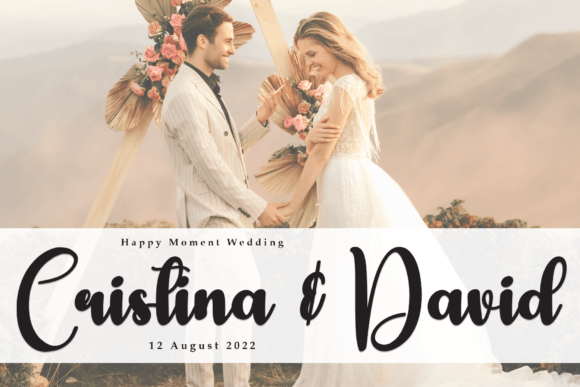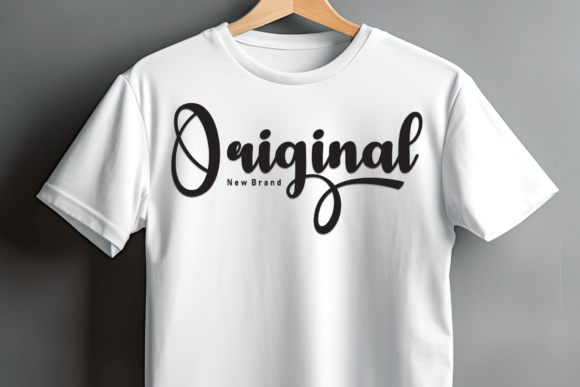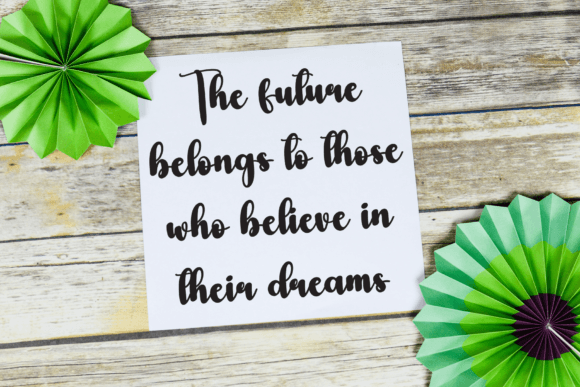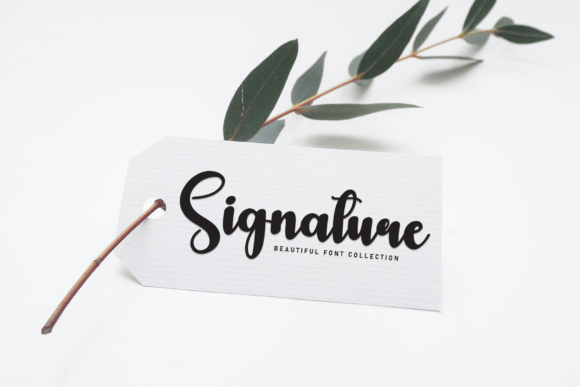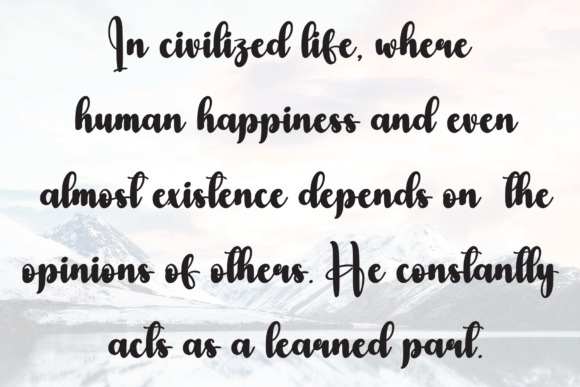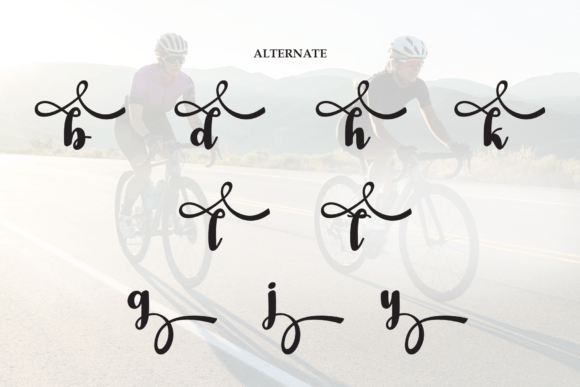
Cycling Font: Add a Touch of Whimsy to Your Designs
Cycling is a sweet and friendly handwritten display font that is sure to bring a smile to your face. This adorable font is perfect for adding a fun touch to your designs, making it ideal for writing wedding invitations, cards, or any other project that requires a dash of personality. In this article, we’ll take a closer look at the Cycling Font, its features, and how you can use it to elevate your designs.
What is Cycling Font?
Cycling Font is a handwritten display font that boasts a charming, cursive style. Its sweet and friendly demeanor makes it perfect for a variety of design applications, from formal events to casual projects. The font’s playful and carefree vibe is sure to capture the attention of your audience and leave a lasting impression.
Key Features of Cycling Font
- Cute and Fun: Cycling Font is designed to add a touch of whimsy to your designs. Its playful and fun style makes it perfect for projects that require a lighthearted approach.
- Handwritten Display Font: This font features a beautiful, handwritten style that is sure to add a personal touch to your designs.
- Ideal for Wedding Invitations and Cards: Cycling Font is perfect for writing wedding invitations, cards, or any other design that requires a touch of elegance and sophistication.
- Easy to Read: Despite its playful style, Cycling Font is easy to read, making it perfect for body text and headings.
How to Use Cycling Font in Your Designs
Cycling Font is a versatile font that can be used in a variety of design applications. Here are a few ideas to get you started:
- Wedding Invitations: Add a touch of elegance and sophistication to your wedding invitations with Cycling Font.
- Greeting Cards: Use Cycling Font to create fun and playful greeting cards for special occasions.
- Social Media Graphics: Add a dash of personality to your social media graphics with Cycling Font.
- Logos and Branding: Use Cycling Font to create a unique and memorable logo or brand identity.
Why Choose Cycling Font?
With so many fonts available, why choose Cycling Font? Here are a few reasons why Cycling Font stands out from the crowd:
- Unique Style: Cycling Font features a unique and playful style that is sure to capture the attention of your audience.
- High-Quality Design: Cycling Font is designed with high-quality and precision, ensuring that it looks great in any design application.
Tips and Tricks for Using Cycling Font
Here are a few tips and tricks for using Cycling Font in your designs:
- Pair with Other Fonts: Cycling Font pairs well with other fonts, so don’t be afraid to experiment with different combinations.
- Use for Headings and Titles: Cycling Font is perfect for headings and titles, but can also be used for body text.
- Experiment with Colors: Cycling Font looks great in a variety of colors, so don’t be afraid to experiment with different color schemes.
Cycling Font is a sweet and friendly handwritten display font that is perfect for adding a touch of whimsy to your designs. With its playful and carefree vibe, Cycling Font is ideal for a variety of design applications, from formal events to casual projects. Whether you’re a designer or crafter, Cycling Font is sure to become a favorite in your font collection.